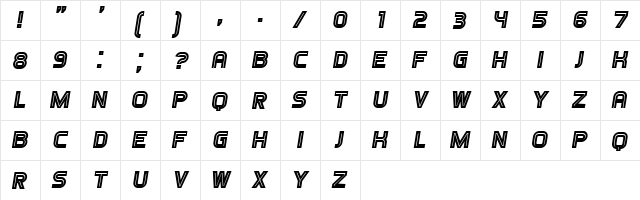
Games Italic
Design Context for Games Typeface
Games offers clean, dependable letterforms without strong stylistic allegiance, making it a practical choice for designers who need flexibility. The dynamic lean of this cut emphasises speed and emphasis in any layout.
Pro Tip: Try Games for annotation and caption copy alongside an upright companion — the contrast in angle creates a dynamic but ordered typographic system.